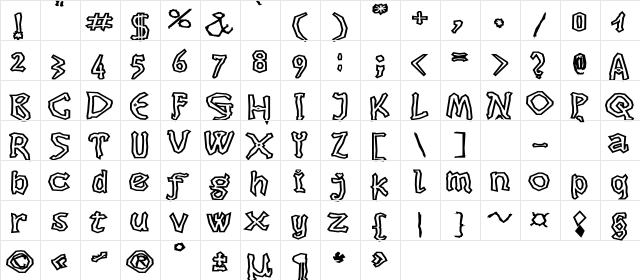
DikovinaOutlineC Regular Font Preview
DikovinaOutlineC Regular
Design Context for DikovinaOutlineC Typeface
DikovinaOutlineC is built around its visual character rather than neutral utility — its distinctive forms are designed to make an impression at display sizes.
Font Pairing: Pair with a clean neutral sans-serif for body copy to let DikovinaOutlineC's character lead without overwhelming the composition.
Pro Tip: Treat DikovinaOutlineC as the centrepiece of your typographic hierarchy. One strong heading set in a decorative face can carry an entire layout.